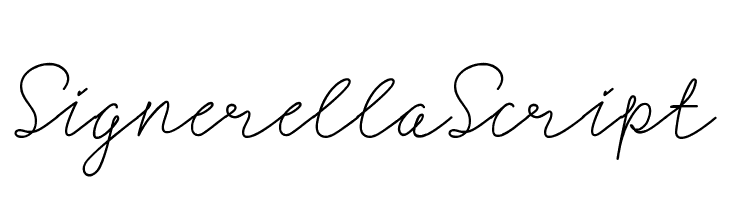
• SignerellaScript caratteri
• Signerica Fat caratteri
A fluid, elegant handwritten script with bold, flowing lines.
• Signerica Medium caratteri
A fluid, cursive handwritten font with elegant, connected strokes.
• Signerica Thin caratteri
A thin, elegant script font with a flowing, handwritten style.
• Signeritta caratteri
A flowing, cursive script font with elegant, interconnected strokes.
• SignFlags caratteri
A decorative font using semaphore flag signals for each character.
• Signfly caratteri
An elegant script font with flowing, cursive letterforms and dynamic contrast.
• Signfly caratteri
A flowing, cursive font with elegant, sweeping strokes.
• Signgual Regular caratteri
• Significent caratteri
A bold, cursive script font with fluid, interconnected strokes.